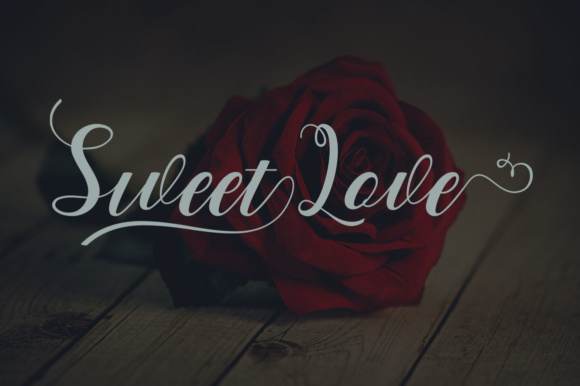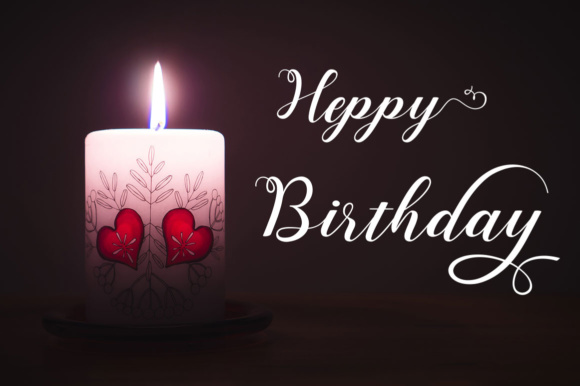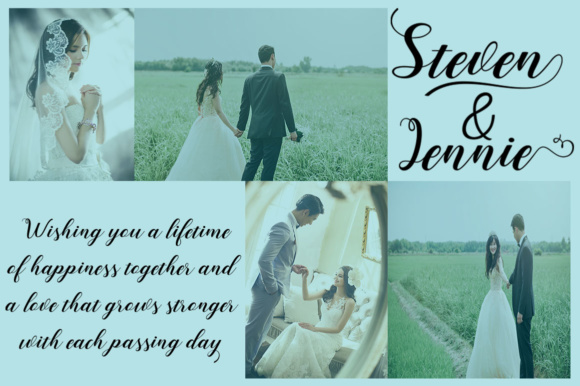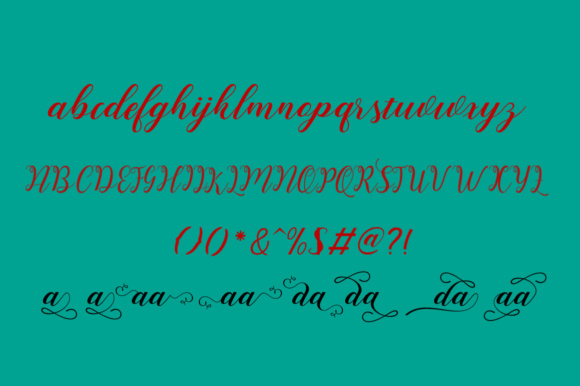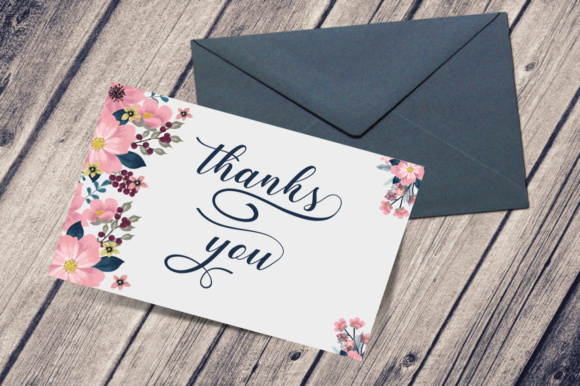
Ayulidia Font
About Ayulidia Font
This font is designed with handwriting, and has a modern and unique calligraphy form. Its writing style is very natural. Mandala script has a very unique style of calligraphy, very suitable for use in modern design works.can be used for business cards, wedding invitations, t-shirts, letterheads, labels, news, posters, badges etc